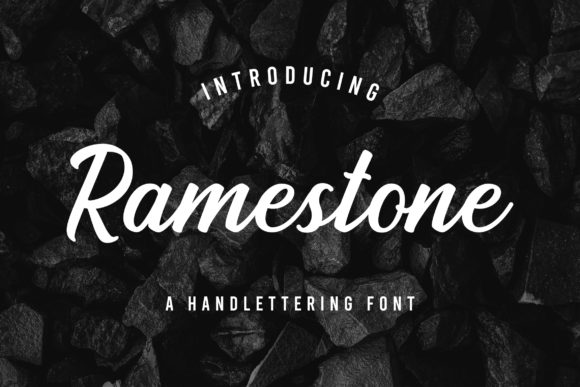
Ramestone Review: A Handwritten Font That Works in Real Campaigns
Last week, I was deep in the final round of visual edits for a client’s seasonal product launch. The brief was simple: make the announcement feel warm, personal, and approachable. I had the product photography locked in, a soft pastel palette ready, and a solid sans serif for the supporting copy. But the headline needed something with more personality. It needed to look like it had been written by a friendly hand, not generated by a machine. That is exactly when I pulled Ramestone into the layout and started testing how it held up across actual campaign deliverables.
Right away, the font delivered on its promise. Ramestone is a Script Amp category typeface that brings a genuinely inviting energy to any design. It is described as a cute and casual handwritten font, and that is accurate, but it also carries a level of polish that makes it suitable for professional brand work. The swashes and ligatures are not just decorative afterthoughts. They are thoughtfully designed to help headlines flow naturally, almost as if a skilled letterer had written them specifically for your project.
What Makes Ramestone a Smart Choice for Marketers
As someone who regularly reviews commercial fonts for campaign use, I look for three things: emotional tone, visual clarity, and flexibility. Ramestone scores well on all three. Its handwritten nature immediately signals approachability. If you are promoting an online course, a creative workshop, or a lifestyle product, this typeface builds an instant emotional bridge with your audience. It feels human, which is valuable in a digital landscape where users are increasingly skeptical of overly polished corporate aesthetics.
The font sits squarely in the display font category. It is not designed for long paragraphs or dense block text, and it does not try to be. Instead, it excels at grabbing attention in short, meaningful bursts. The letterforms have a gentle, bouncy rhythm that feels optimistic without becoming childish. For a brand manager or social media strategist, that tonal sweet spot is hard to find. Many handwritten fonts lean either too formal or too messy. Ramestone lands comfortably in the middle, making it a reliable choice for content that needs to connect without overcomplicating the message.
The Emotional Tone of Your Graphics
When you are designing for fast-scrolling feeds like Instagram or Pinterest, the first impression matters within fractions of a second. A Ramestone headline immediately communicates warmth. I tested it on a quote graphic for a wellness account, and the natural flow of the swashes softened what could have been a standard inspirational post. It felt less like a stock template and more like a personal note. That distinction matters for engagement. When your audience feels like a brand is speaking to them directly, they are more likely to stop scrolling, read the caption, and interact with the content.
Testing Ramestone in a Live Campaign Workflow
I put Ramestone through a practical test across three formats: an Instagram post, a YouTube thumbnail, and a simple email banner. Here is how it performed in each context.
- Instagram Post (Product Teaser): I used Ramestone for the main headline. The swashes looked gorgeous on the desktop preview, but I made sure to check the mobile view carefully. Script fonts can sometimes lose legibility when reduced. Ramestone held up well because the stroke contrast is moderated. It is not too thin in the upstrokes, which means it remains readable even on smaller screens. I paired it with a clean sans serif for the call-to-action to ensure nothing got lost.
- YouTube Thumbnail: This was a test of quick visual impact. The thumbnail needed to convey a friendly, educational vibe for a course launch teaser. Ramestone worked perfectly as the title overlay. I kept the text short, just three words, and let the ligatures create a natural visual rhythm. On a dark background with soft lighting, the font popped beautifully. It added a handmade quality that differentiated the thumbnail from the standard bold sans serif thumbnails common in that niche.
- Email Banner: For the email header, I used Ramestone for the main announcement text. The key here was to keep generous spacing around the swashes so they did not crowd the edges of the banner. The friendly tone of the typeface carried well into the inbox, where personal connection is always a goal. I avoided using it for any body copy or links, saving it purely for the hero headline.
Where Readability Requires Extra Attention
No review would be honest without addressing limitations. Ramestone is a display font first. It works best when the text is large, short, and surrounded by breathing room. I would not recommend using it for long headlines that exceed six or seven words, as the swashes can start to feel busy. It is also not suitable for small text, captions, or dense information layouts. If you try to force it into a role that demands strict uniformity or extreme compactness, you will lose the very qualities that make it special. Know the context. Use it where warmth matters, but lean on a simpler sans serif for clarity.
Where Ramestone Fits Best in Your Content Mix
From a content strategy perspective, Ramestone is a versatile asset if you choose the right formats. I found it particularly effective for the following applications.
- Social Media Headlines and Overlays: Whether you are designing Instagram Stories, Reels covers, or static feed posts, a Ramestone headline adds a welcoming touch. It pairs naturally with lifestyle photography, flat lays, and minimalist backgrounds.
- Pinterest Pins: Pinterest is a visual search engine where typography carries significant weight. Ramestone works beautifully on pin titles, especially for topics like DIY projects, recipes, home decor, and personal development. The handwritten feel aligns perfectly with the aspirational yet approachable tone of the platform.
- Webinar and Landing Page Banners: If you are launching a course or hosting a live event, the hero section of your landing page needs to build trust quickly. Ramestone can handle the main headline, while a neutral serif or sans serif handles the subtext and bullet points. The contrast creates a clean visual hierarchy.
- Small Business Promotions: For online shops running seasonal sales or new collection announcements, Ramestone communicates a small-batch, artisanal quality that larger brands often struggle to replicate. It supports the narrative of a business that cares about details.
Building a Cohesive Look with Ramestone
One of the most common questions I hear from marketing teams is how to pair fonts without creating visual chaos. Ramestone gives you a strong starting point because its personality is so clearly defined. You do not need to compete with it. Instead, choose a neutral partner that lets the handwritten element shine. A clean geometric sans serif like Montserrat, Inter, or Open Sans works well for supporting text, buttons, and labels. If you prefer a more editorial feel, a simple serif font can add a touch of contrast while maintaining readability.
When building a brand identity template, I recommend reserving Ramestone for hero moments. Use it for primary headlines in social graphics, email headers, and promotional banners. Keep it away from navigation menus, product descriptions, and legal footnotes. This intentional separation strengthens both the visual impact of the font and the clarity of your communication. Your audience will intuitively understand that the handwritten text is the emotional hook, while the clean text delivers the practical information.
A Quick Glance at Licensing and Tech Specs
Before committing to a font for commercial campaigns, it is essential to confirm the licensing terms. Ramestone, like many quality Script Amp fonts, is available as a commercial font, but you should verify that the license covers your specific use case. If you are creating social media templates for clients, designing digital products, or printing merchandise, check whether extended licensing is needed. This step protects both you and your clients from unexpected restrictions down the line.
From a technical standpoint, Ramestone includes well-crafted ligatures and alternate swashes that give you control over the final look. Most professional design software, including Adobe Illustrator, Photoshop, Affinity, and Canva, will let you access these OpenType features. I recommend testing a few different letter combinations to see how the ligatures interact. Some pairs flow more dramatically than others, and choosing the right combination can elevate a simple headline into a custom lettering piece. The font files are typically provided in both OTF and TTF formats, which cover most design and web use cases.
Multilingual support is another practical consideration. If your campaigns target international audiences, check the character set to confirm it includes the accents and symbols you need. Ramestone offers solid coverage for many Western European languages, which is helpful for brands running ads in multiple regions.
In the end, Ramestone earns its place in a practical marketing toolkit because it solves a specific problem: how to make digital content feel more human. It is not a font that tries to do everything, and that honesty is what makes it reliable. When your campaign brief calls for warmth, personality, and a friendly hand, Ramestone delivers without forcing you to compromise on quality. It is a font that understands its role, and for a marketing designer working under tight deadlines, that clarity is exactly what makes a typeface worth keeping close. The next time you are staring at a blank template wondering how to make a headline feel less corporate, try dropping Ramestone into the layout. You might be surprised how much of the creative lift it handles on its own.